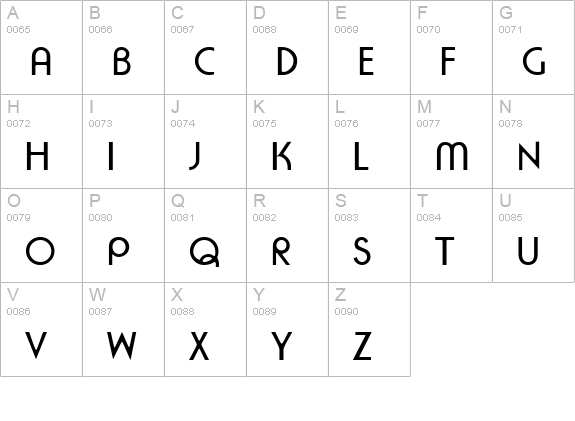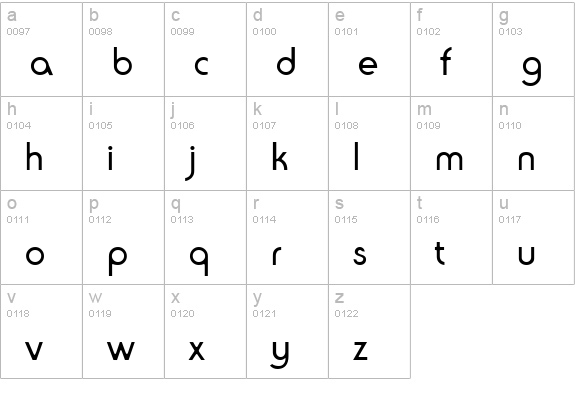
Rondalo Regular Font Details
Rondalo Regular is the standard, neutral variant in the Rondalo typeface family \xE2\x80\x94 well suited to general body text, paragraphs, and standard typographic work.
Rondalo Regular font is a modern and elegant typeface that exudes sophistication and style. With its clean lines and balanced proportions, this font is perfect for a wide range of design projects, from branding to editorial layouts. The versatility of Rondalo Regular makes it a go-to choice for designers looking to make a statement with their typography. And the best part? Rondalo Regular is completely free to download at FontsMarket.com. This means you can access this high-quality font without any cost, making it a valuable addition to your font library. Whether you're working on a personal project or a client's design, Rondalo Regular is sure to elevate your work with its timeless appeal and professional finish. Download Rondalo Regular today and add a touch of sophistication to your next design project.